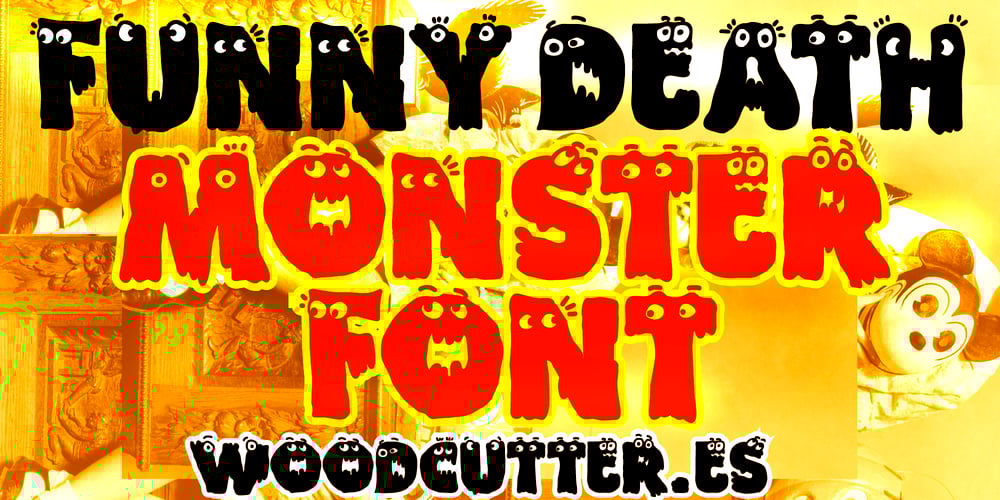
Funny Death Font Family was designed by Jordi Manero and published by Woodcutter. Funny Death contains 1 styles and family package options. “Funny Death” is a humanized typeface that transforms each letter into hilariously terrifying little monsters. With uppercase letters and included accents, this font is perfect for projects seeking a balance between spooky and playful. Ideal for Halloween, themed parties, or any design requiring a touch of macabre humor, “Funny Death” brings personality and creativity to your texts. Its unique style ensures that every word appears to come to life in a grotesque yet charming manner, making your designs stand out with originality.–Uppercase